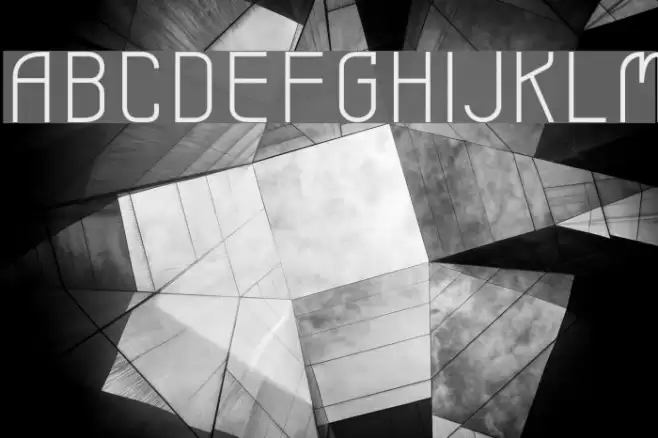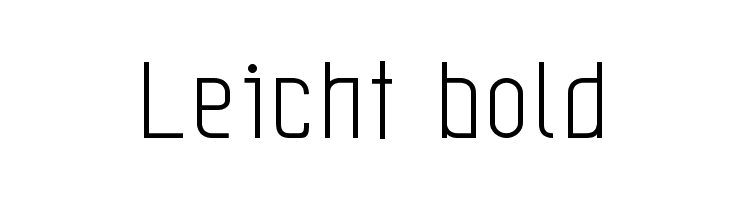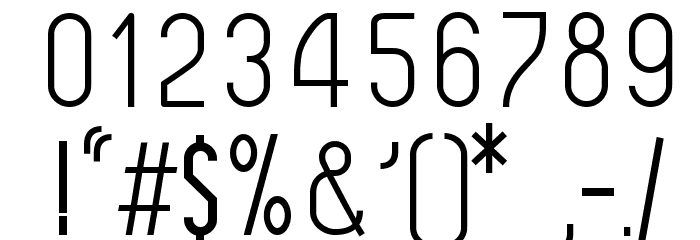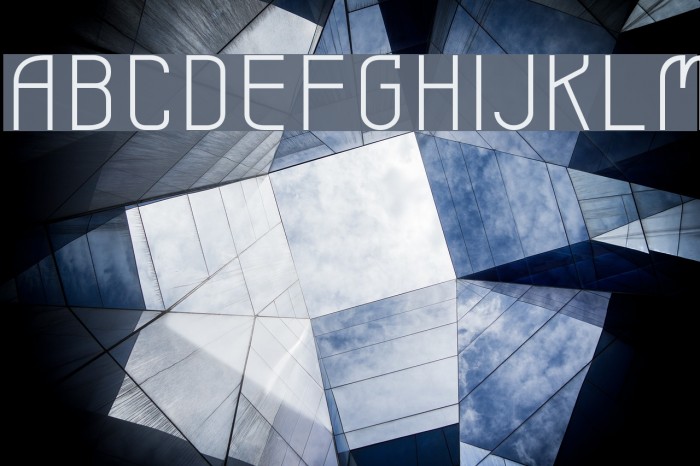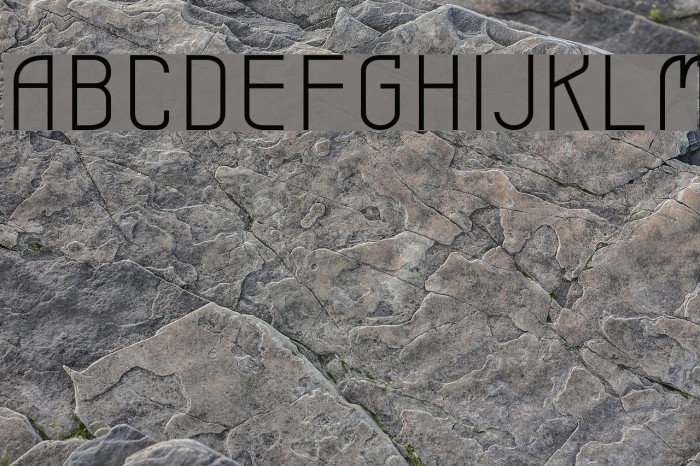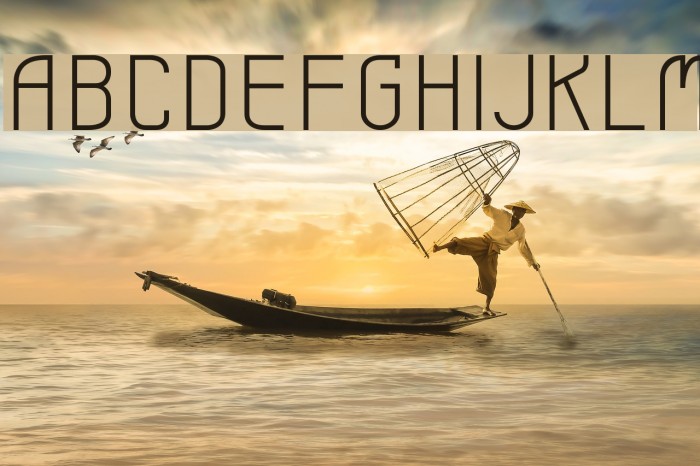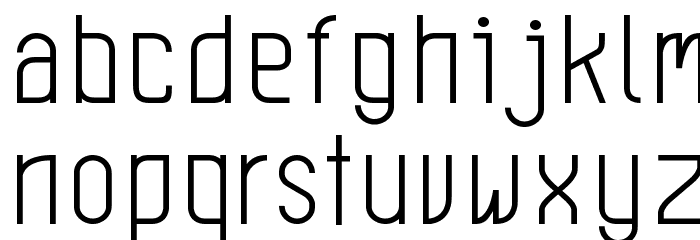
Leicht bold Font
Leicht bold Description
This font features a clean, geometric design with a modern aesthetic. The characters are constructed with uniform stroke widths, giving it a balanced and harmonious appearance. The uppercase and lowercase letters maintain a consistent style, with rounded edges and a slightly condensed form. The numerals and special characters follow the same design principles, ensuring a cohesive look across all glyphs. This font's simplicity and clarity make it highly legible, suitable for a variety of applications where readability is key.
A clean, geometric font with uniform strokes and a modern aesthetic from Uncategorized fonts.